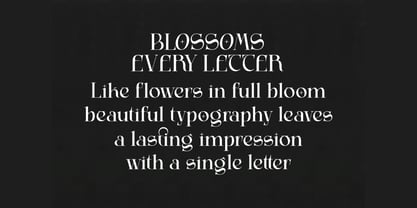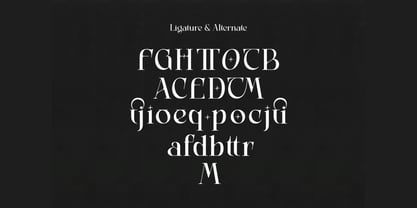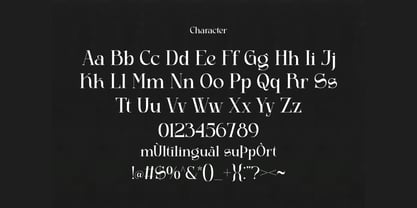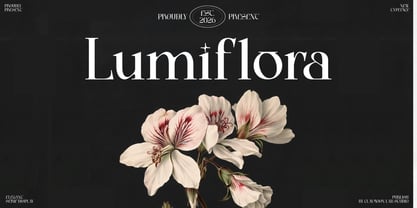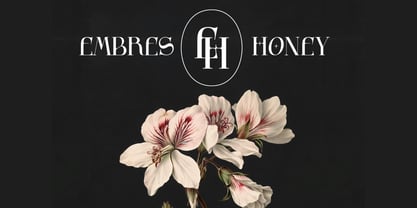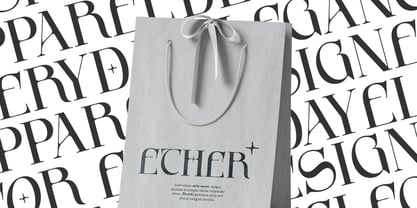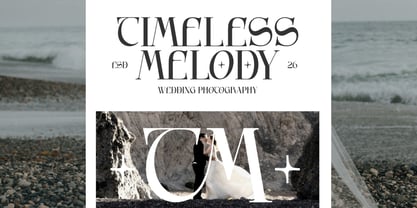
Lumiflora
La familia tipográfica Lumiflora fue diseñada por Firman Maulana Ihsan y publicada por Claymoon Lab Studio. Lumiflora contiene 1 estilos. Más información sobre esta familia
Lumiflora — Elegant Display Serif Typeface
Where botanical grace meets typographic mastery — Lumiflora is a high-contrast elegant display serif that blooms with quiet authority across every application it graces. Inspired by the delicate tension between organic nature and refined structure, Lumiflora features dramatically tapered strokes, gracefully arched crossbars, and distinctive decorative star terminals that give each character an unmistakable signature of celestial sophistication.
The letterforms carry a dual personality — commanding at display scale with sweeping contrast between hairline thins and bold thick strokes, yet intimate and refined when set at smaller sizes. An extensive ligature and alternate character system opens up limitless typographic possibilities, allowing designers to craft compositions that feel genuinely bespoke, effortlessly elegant, and impossible to replicate with any other typeface.
• Ligatures & Stylistic Alternates: Rich set of decorative character variants for unique, custom typographic compositions.
• Full Character Set: Uppercase, lowercase, numerals, and punctuation.
• Multilingual Support: Extended Latin coverage for international creative projects.
• Branding & Logo Design: Crafting refined wordmarks, monograms, and luxury brand identities for fashion, beauty, wellness, and premium lifestyle businesses.
• Wedding & Event Design: Setting an elevated tone for wedding invitations, ceremony programs, monogram designs, and celebration stationery with timeless floral elegance.
• Editorial & Publication Design: Composing breathtaking magazine covers, book titles, editorial spreads, and digital publication headers with high-contrast serif drama.
• Packaging & Label Design: Developing premium product labels, fragrance packaging, cosmetic identities, and artisan brand packaging with botanical sophistication.
• UI & Web Design: Applying distinguished serif typography to luxury website headers, landing pages, and high-end digital brand experiences.